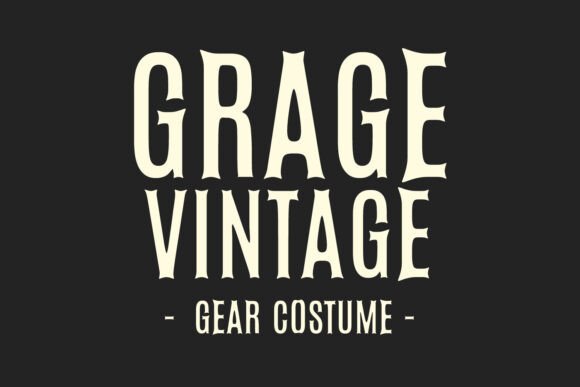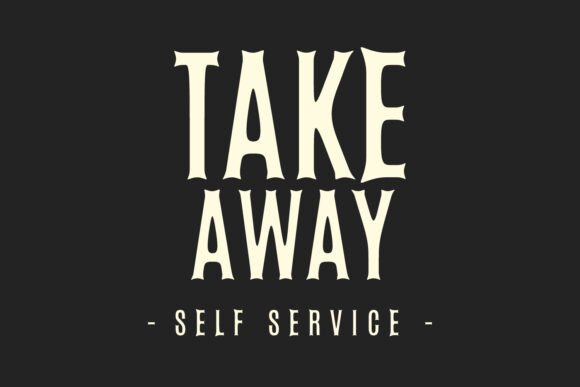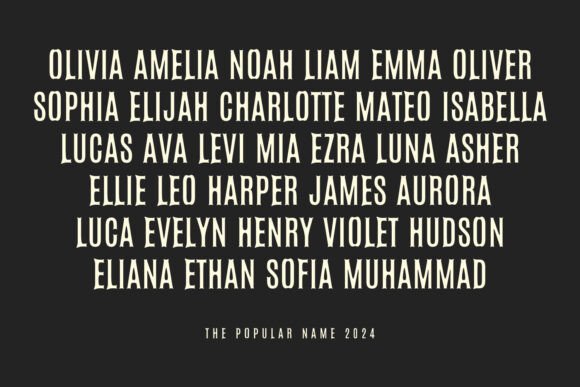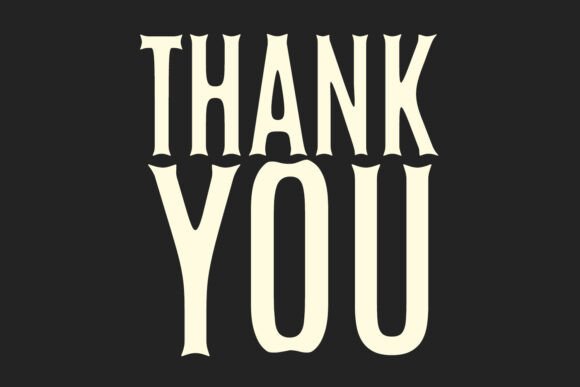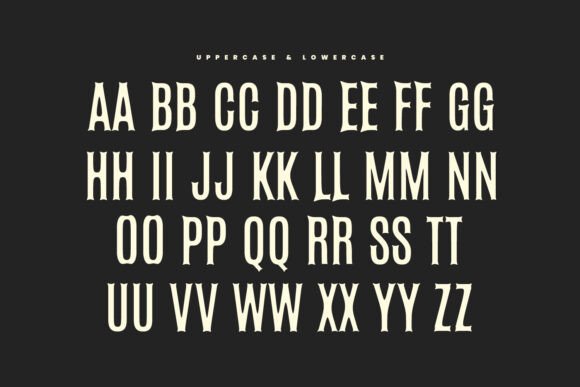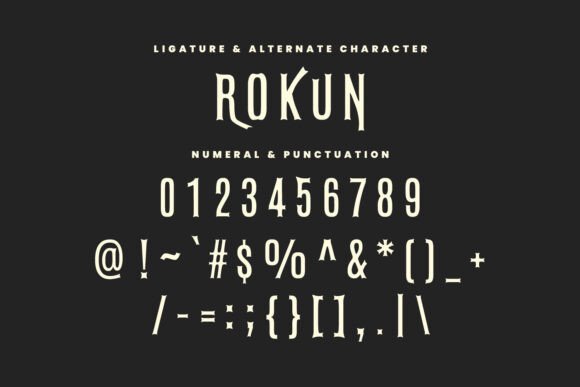
Introduction to Rokun Metal Font
Rokun Metal is a striking display font with a bold and modern look.
Its sharp edges and strong lines give it a powerful presence, making it great for headlines and eye-catching designs Perfect for adding a tough and edgy feel to your projects.
Key Features of Rokun Metal Font